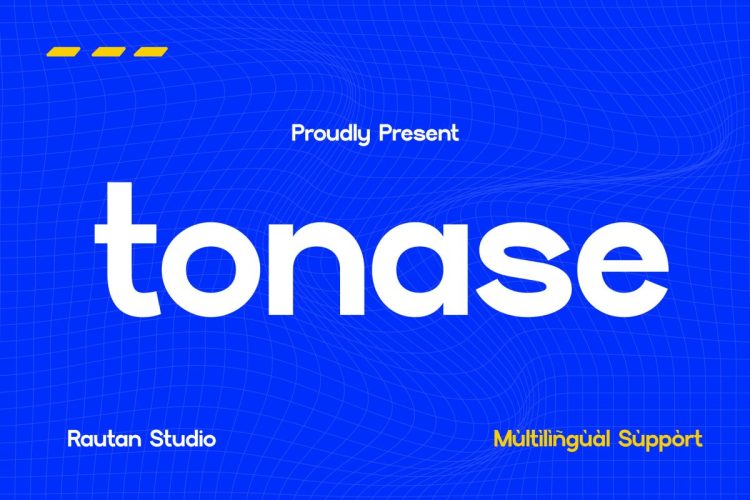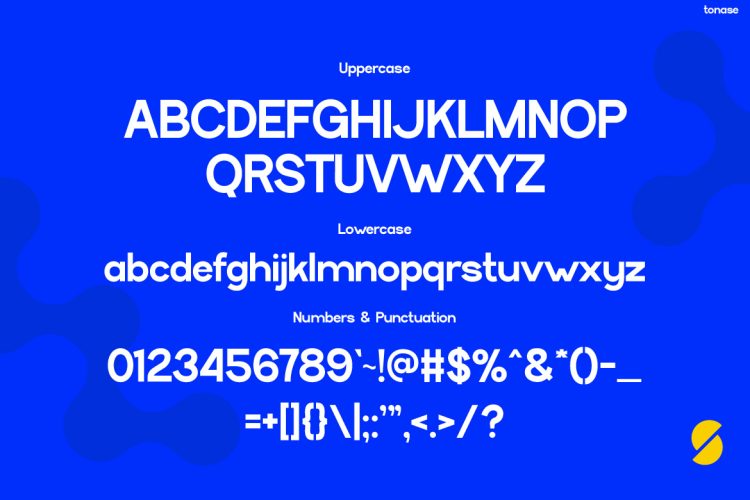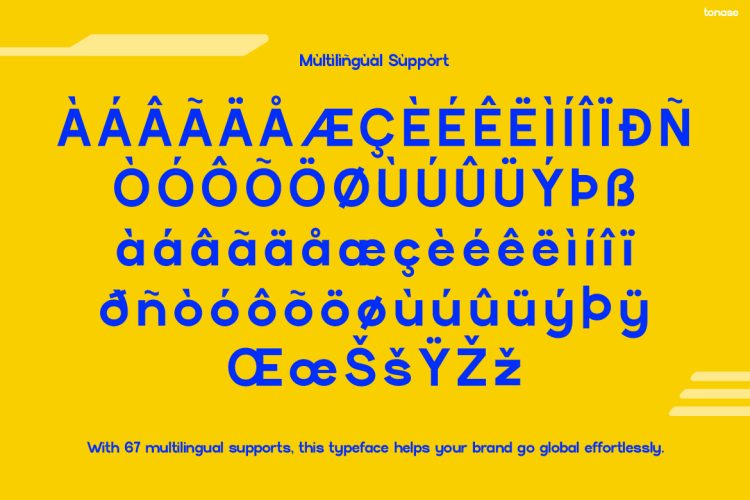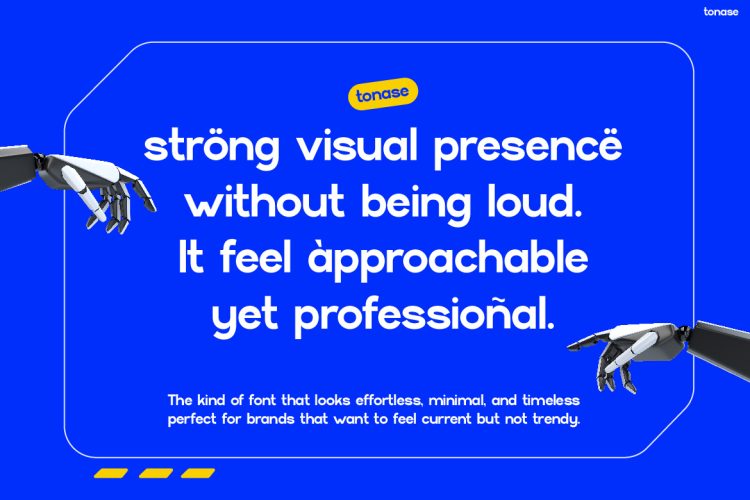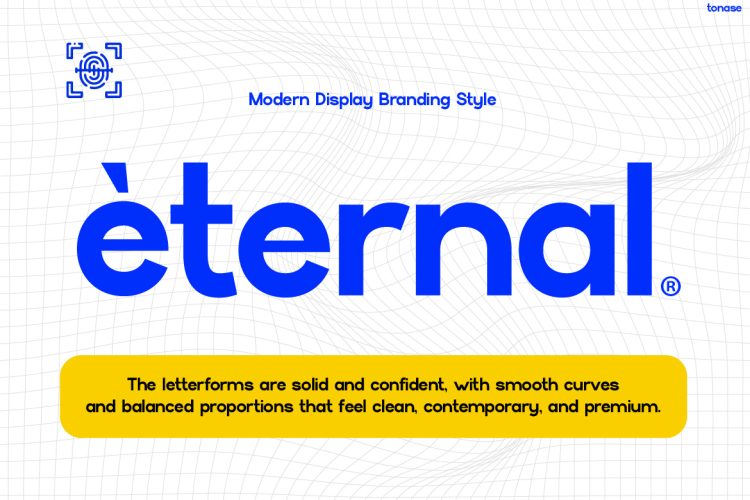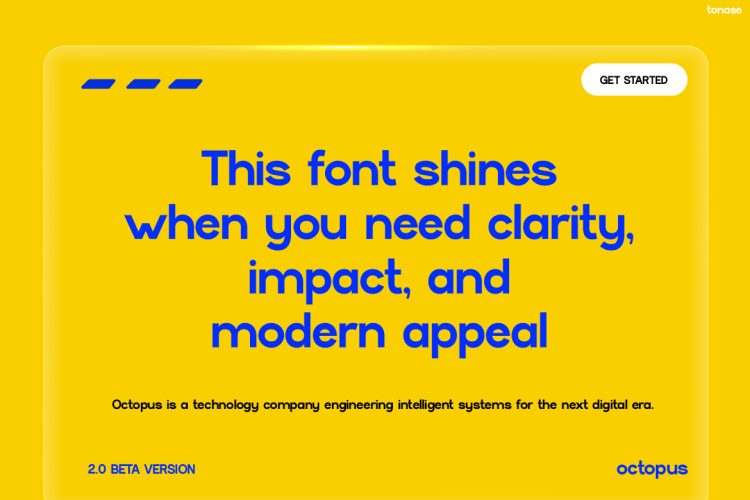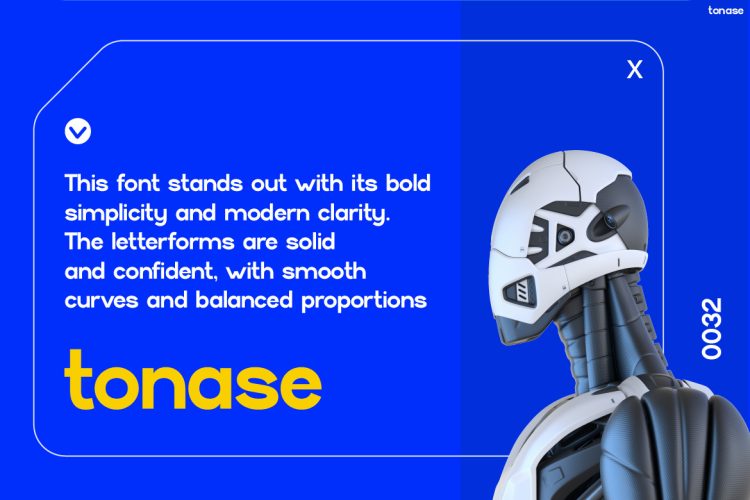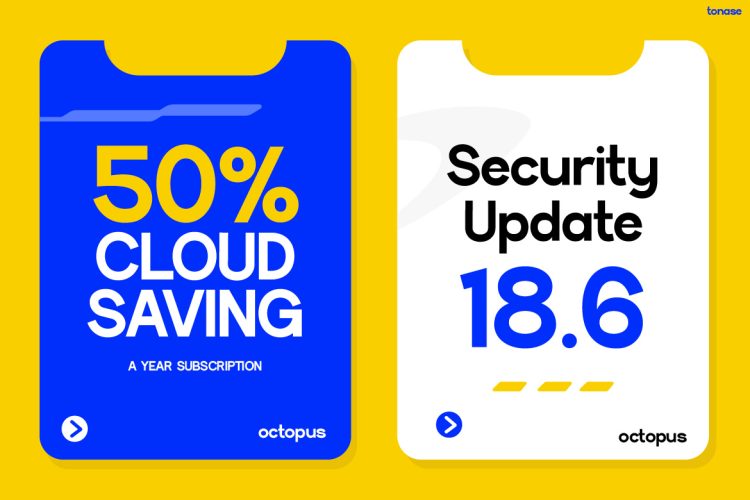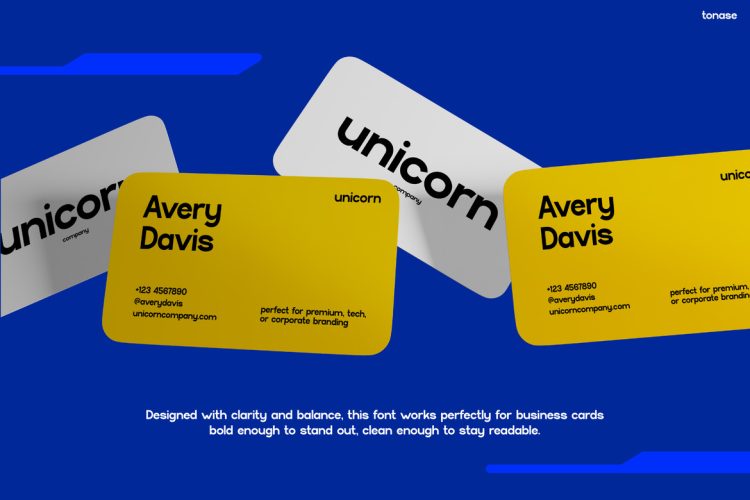
Modern Font Tonase โ Bold Simplicity with Modern Impact
Modern Font Tonase delivers a confident, contemporary sans serif designed for clarity, strength, and modern digital communication. From the very first impression, Tonase feels bold yet controlled, combining clean geometry with smooth curves that create a strong visual presence without feeling loud. Its letterforms look solid, friendly, and professional at the same time, which makes the font highly versatile across many design contexts. Tonase balances visual weight carefully, allowing text to stand out clearly while remaining approachable and easy to read. Because of this thoughtful construction, the font performs exceptionally well in interfaces, branding systems, and high-impact layouts that demand both style and function.
Tonase focuses on modern simplicity. Instead of unnecessary decoration, it uses precise proportions and consistent strokes to communicate clarity and confidence. As a result, headlines feel powerful, UI text stays readable, and branding visuals look polished. The font also supports 67 languages, enabling designers and brands to maintain a consistent global identity. Whether displayed on screens, printed materials, or large-format visuals, Tonase keeps its sharp character and modern appeal.
Designed for Clarity and Professional Presence
Tonase shines when designers need strong visual hierarchy and clean communication. Its modern sans serif style works perfectly for tech-forward themes, digital products, and contemporary branding. Moreover, the balanced structure helps text adapt smoothly across layouts, from bold titles to supportive body text. Because Tonase avoids extreme shapes, it remains timeless while still feeling current. Therefore, it becomes a reliable choice for long-term brand systems and evolving digital platforms.
Modern Font TONASE Perfect for Who?
Modern Font Tonase fits startups, tech companies, SaaS platforms, UI/UX designers, and digital agencies that want a modern and trustworthy appearance. Additionally, it works well for corporate branding, fintech products, security services, presentations, dashboards, and mobile apps. Graphic designers can use Tonase for posters, marketing visuals, social media content, and packaging. Entrepreneurs, product designers, and creative studios will appreciate how easily Tonase adapts to both bold statements and clean informational layouts.
Modern Font Tonase helps brands communicate strength, clarity, and modern professionalism through typography. If you want a font that looks confident, works globally, and performs across digital and print media, Tonase is a smart investment. Choose Tonase to sharpen your message, strengthen your brand image, and create designs that feel modern, clear, and impactful.